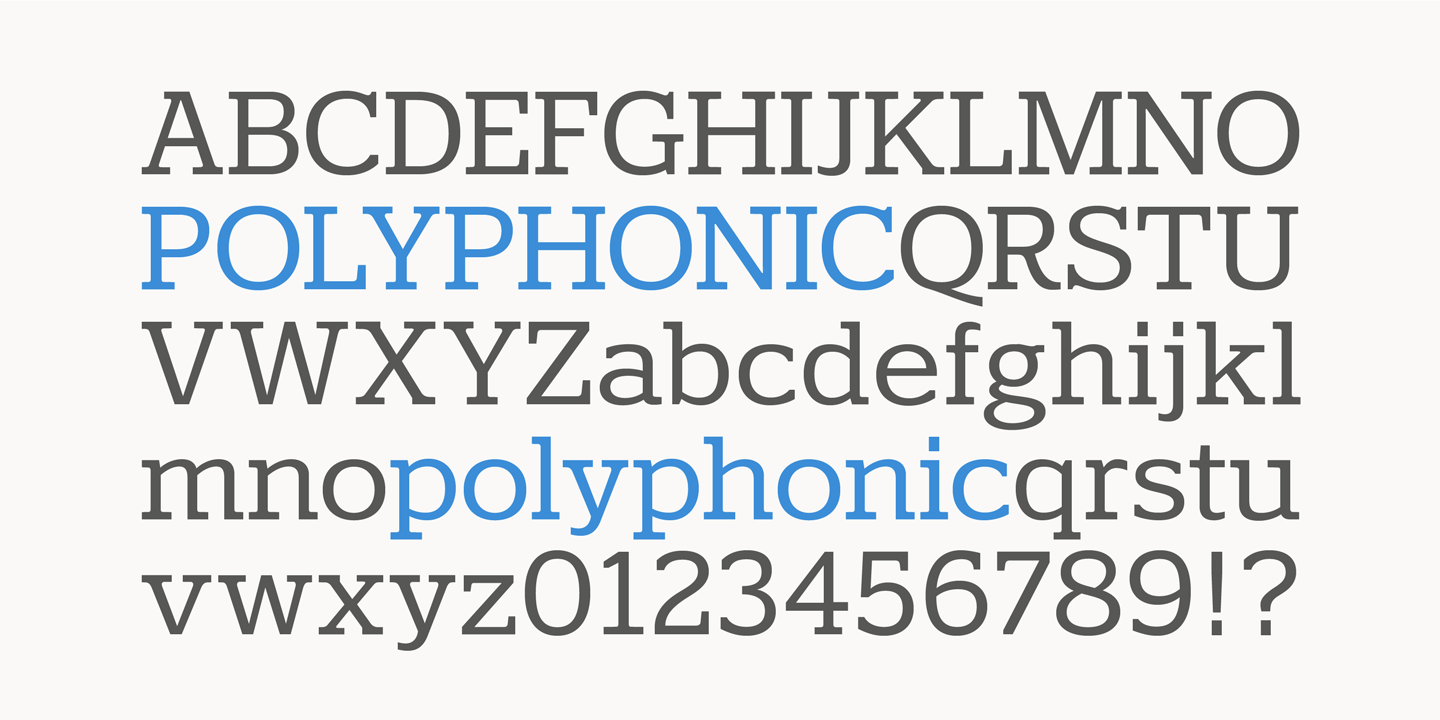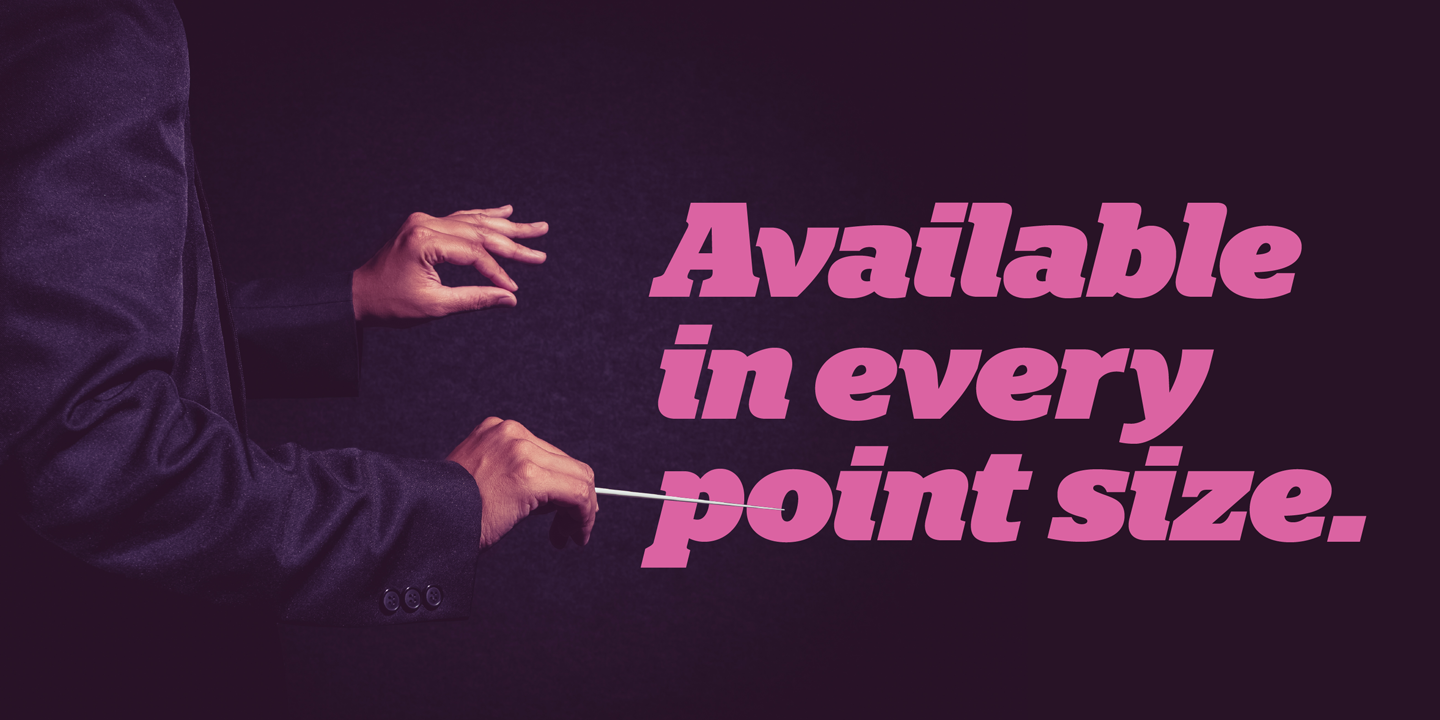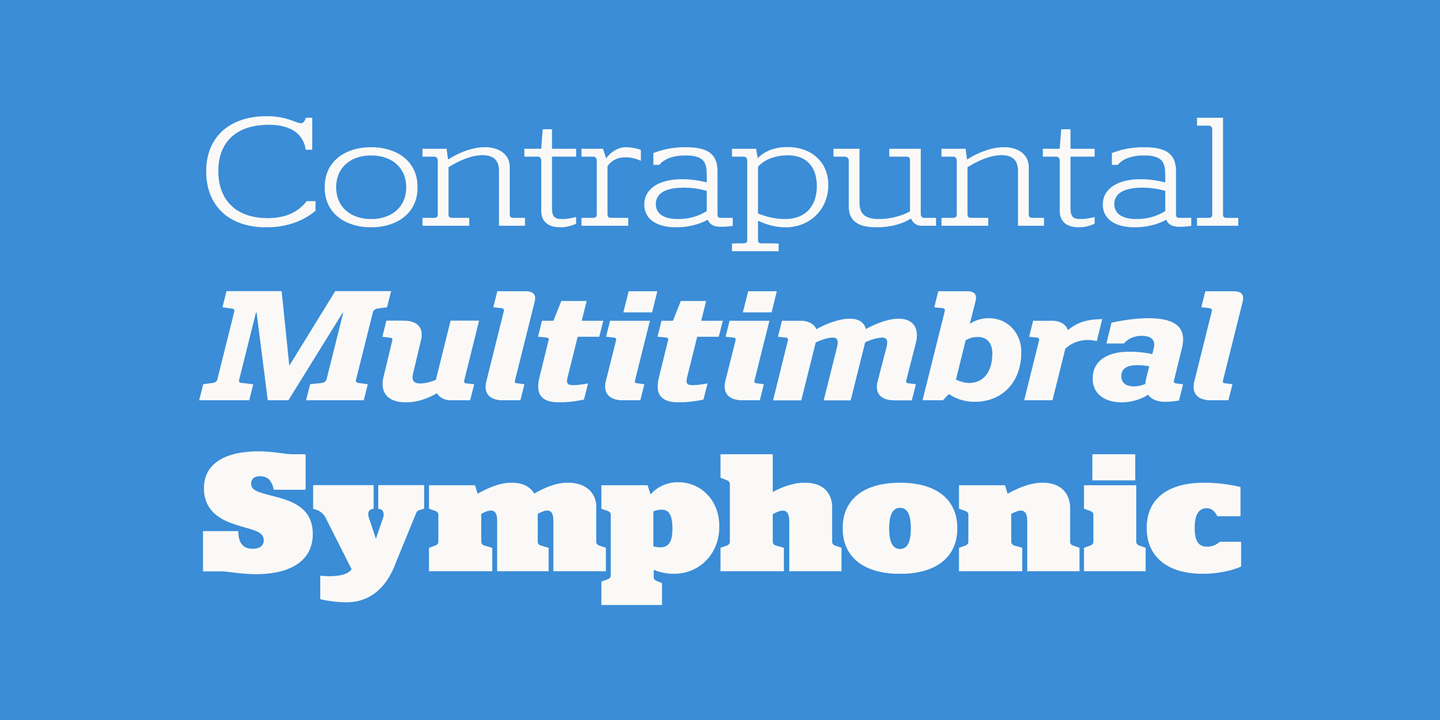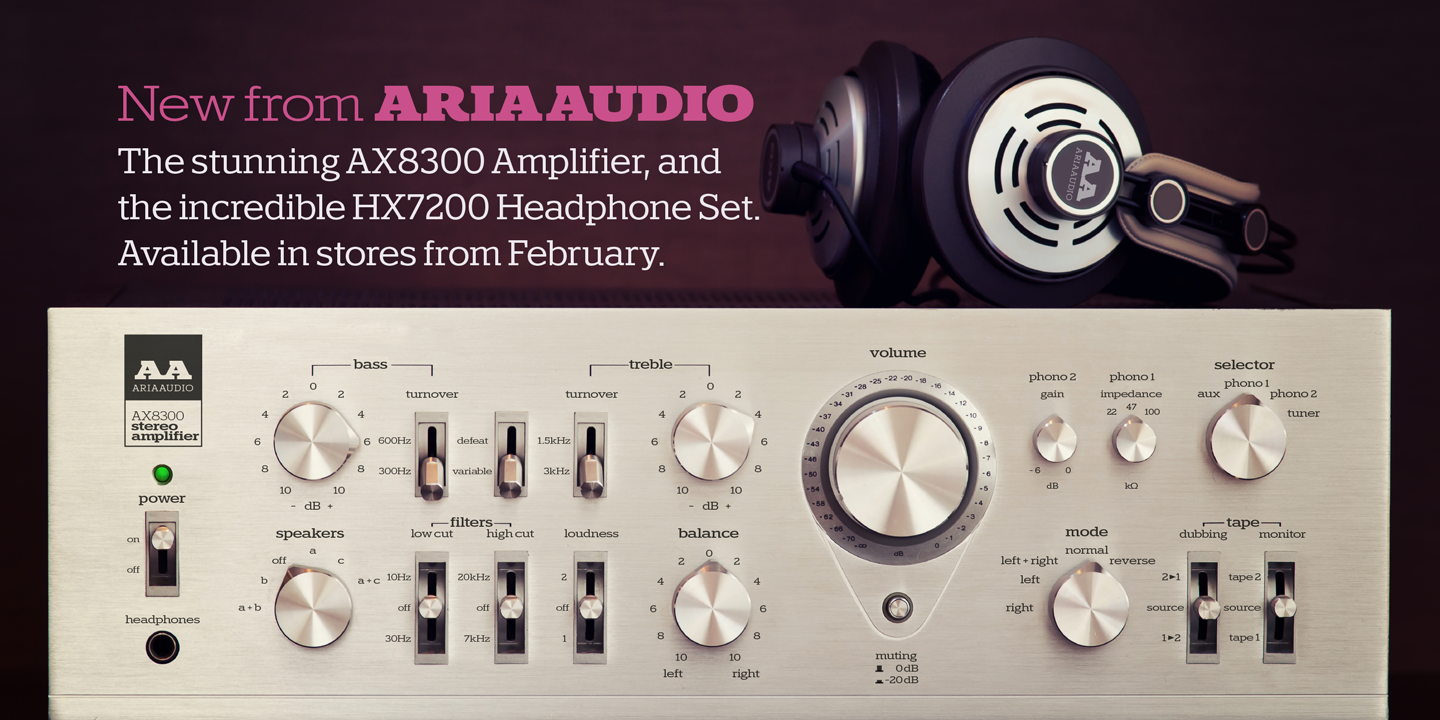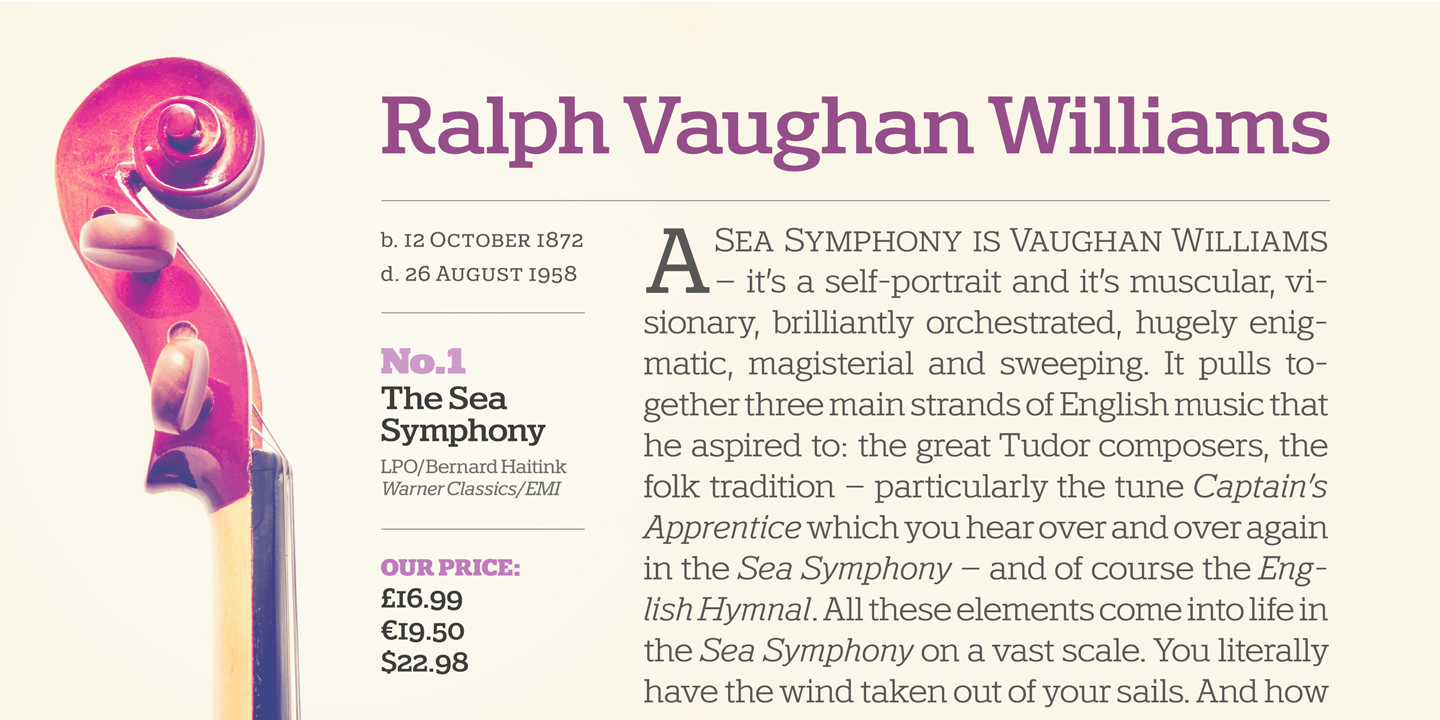
About Polyphonic Font Family Polyphonic is a highly versatile slab serif typeface comprising 60 fonts across 6 weights and 5 widths, It is a no-nonsense, clear and legible type family whose multiple voices will suit numerous typographic applications, Its overall personality is polite, understated and formal – there are no frills with this typeface, it conveys messages simply and efficiently without hyperbole
Polyphonic’s lighter weights are great for body text and its heavier weights the perfect complement for branding, titles, headings and logotype options, Small Caps are included with each font and available with one click, as are Old Style Figures, there is extensive language support too – European/Latin only
Key features:• 6 Weights in Roman and Italic• 5 Widths – Condensed, Narrow, Regular, Wide, Extended• Small Caps• Old Style Figures• European Language Support (Latin)• 600 glyphs per font, See more detailed examples at the Polyphonic microsite, Designers: Paulo GoodePublisher: Paulo GoodeFoundry: Paulo GoodeDesign Owner: Paulo GoodeMyFonts debut: Oct 24, 2018 Polyphonic